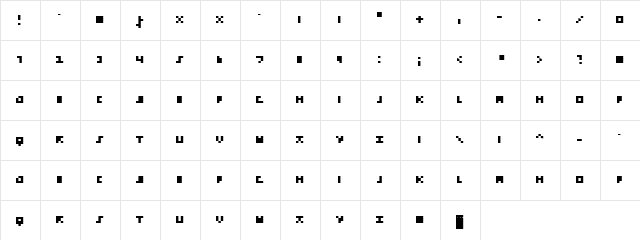
emp_pix Regular
| Foundry | Peter Zharnov |
| Designer | Peter Zharnov |
Design Context for emp_pix Typeface
emp_pix takes a measured approach to typography — its balanced proportions and neutral character make it a reliable workhorse for both digital and print work.